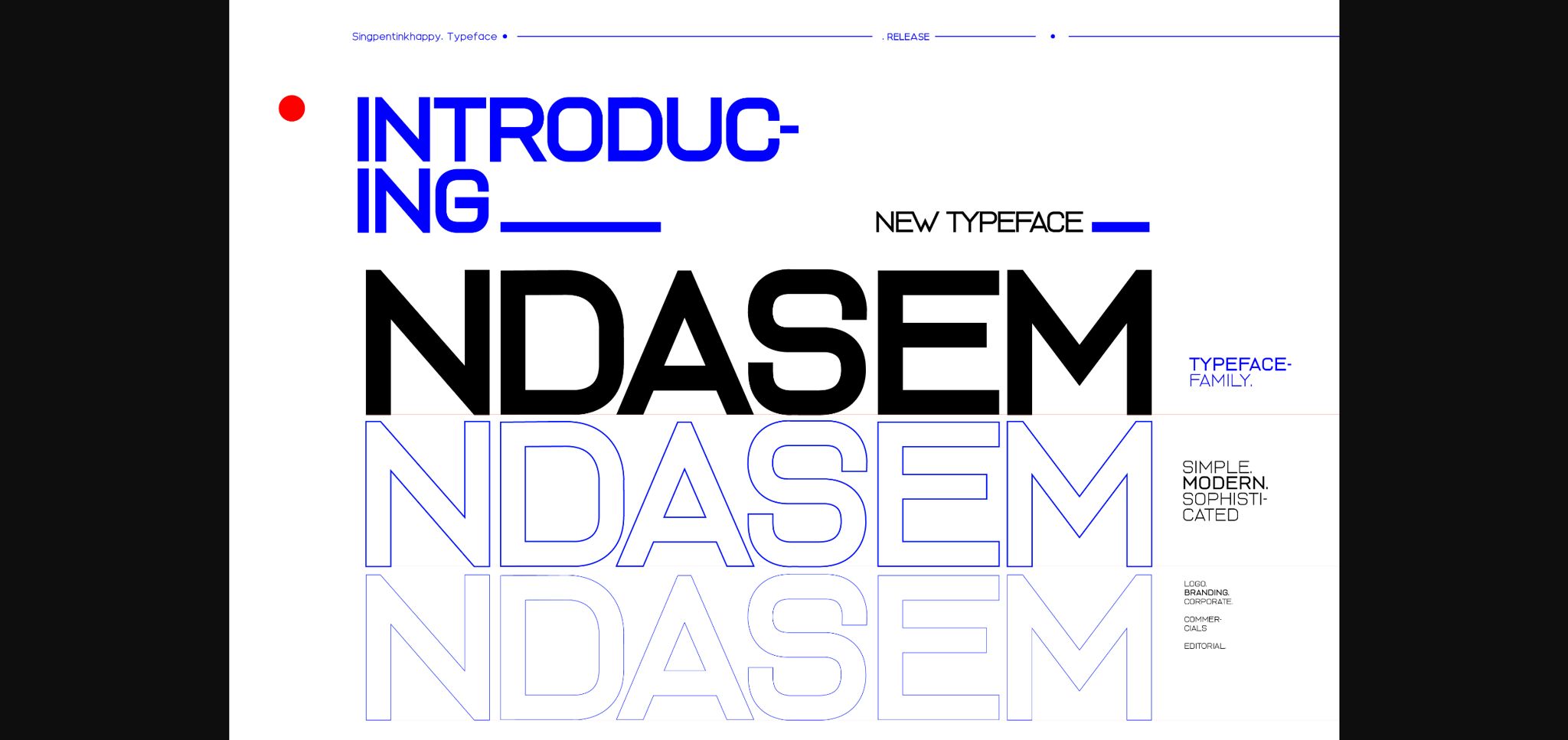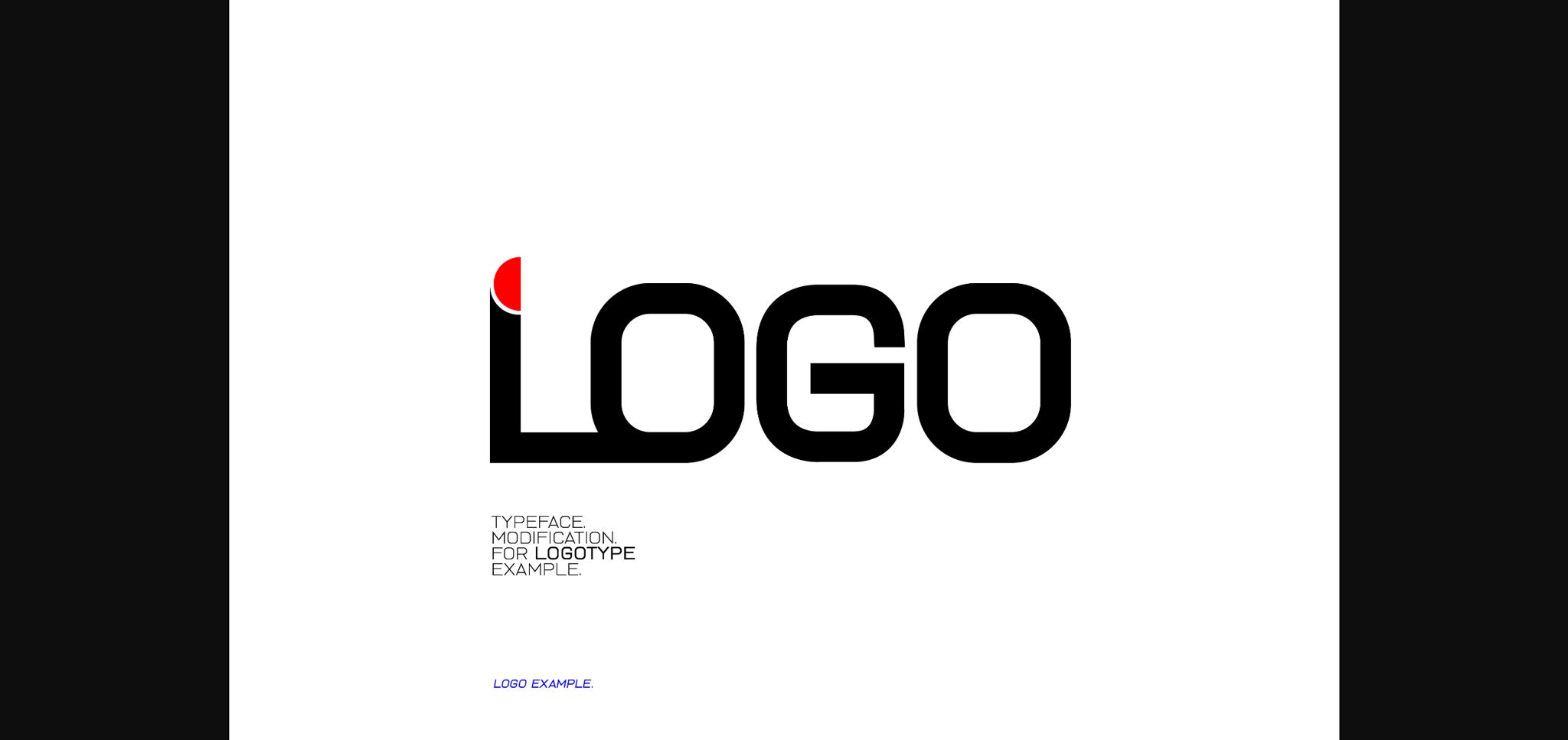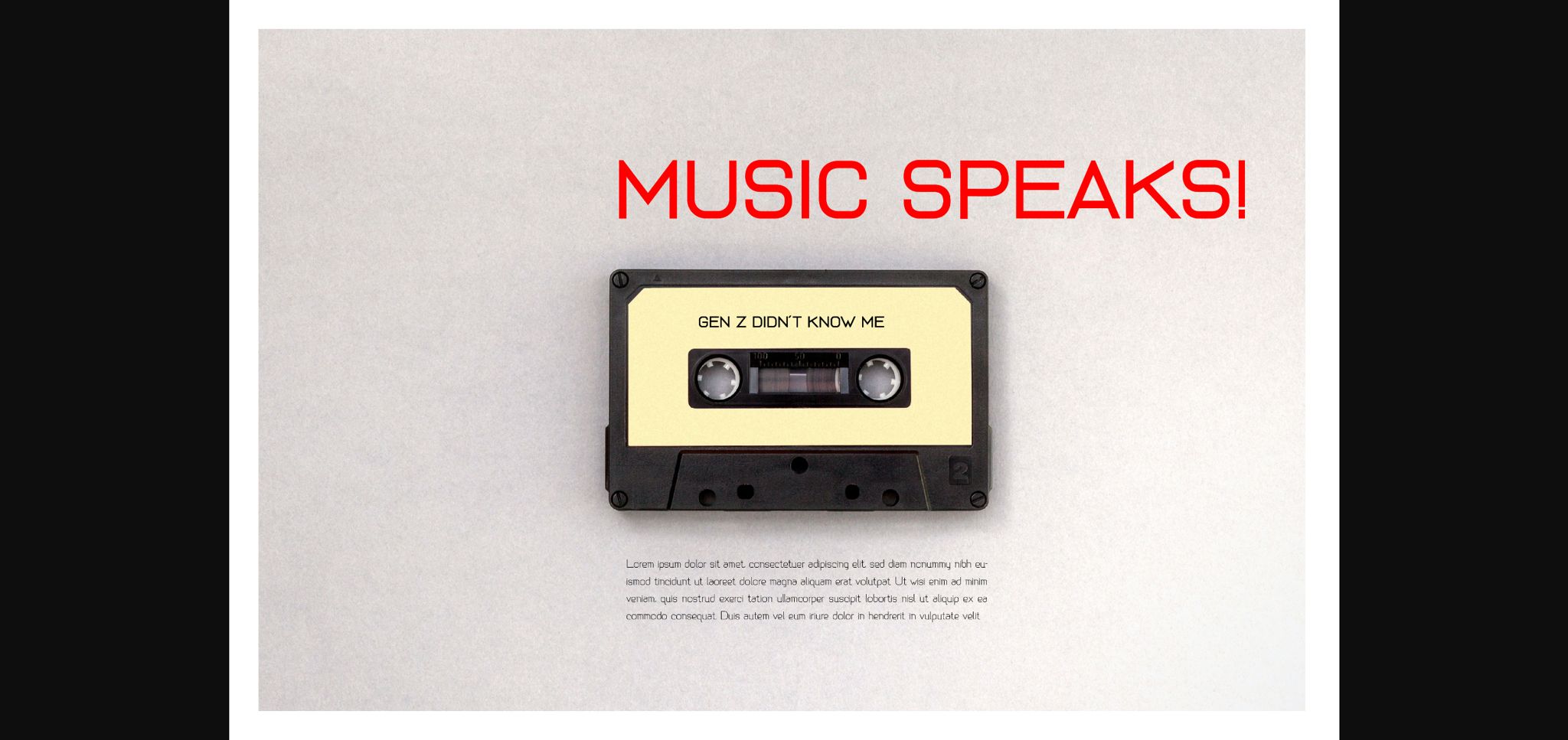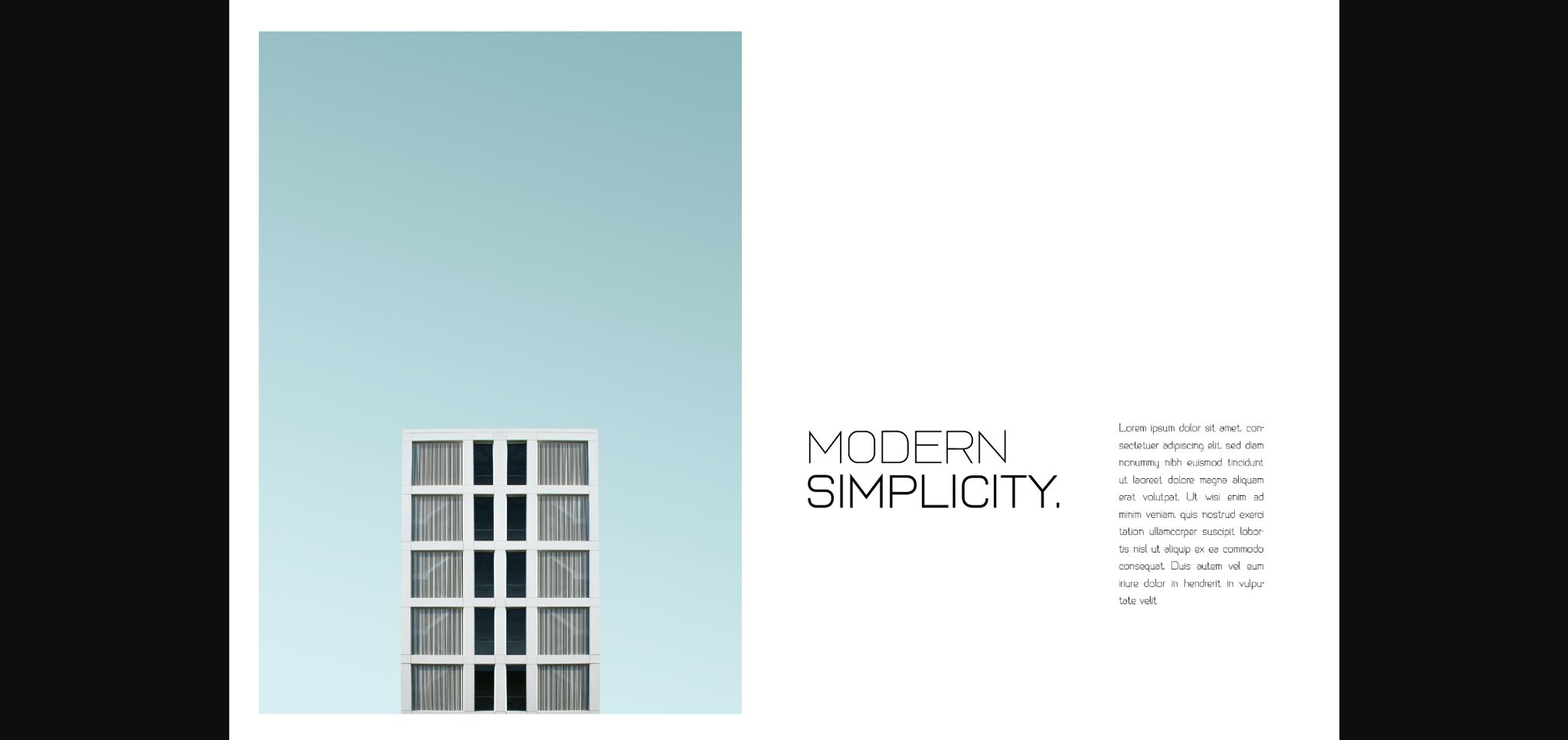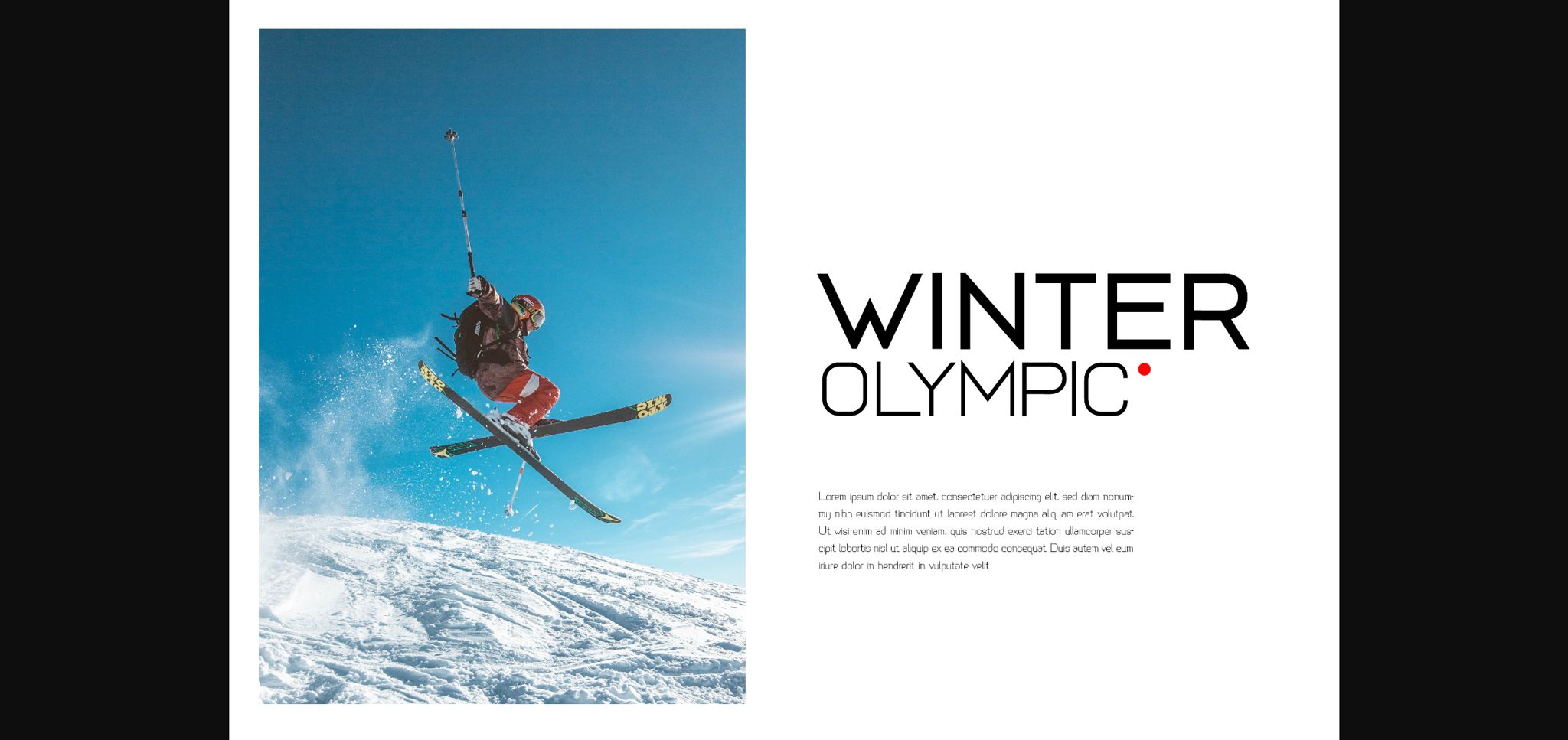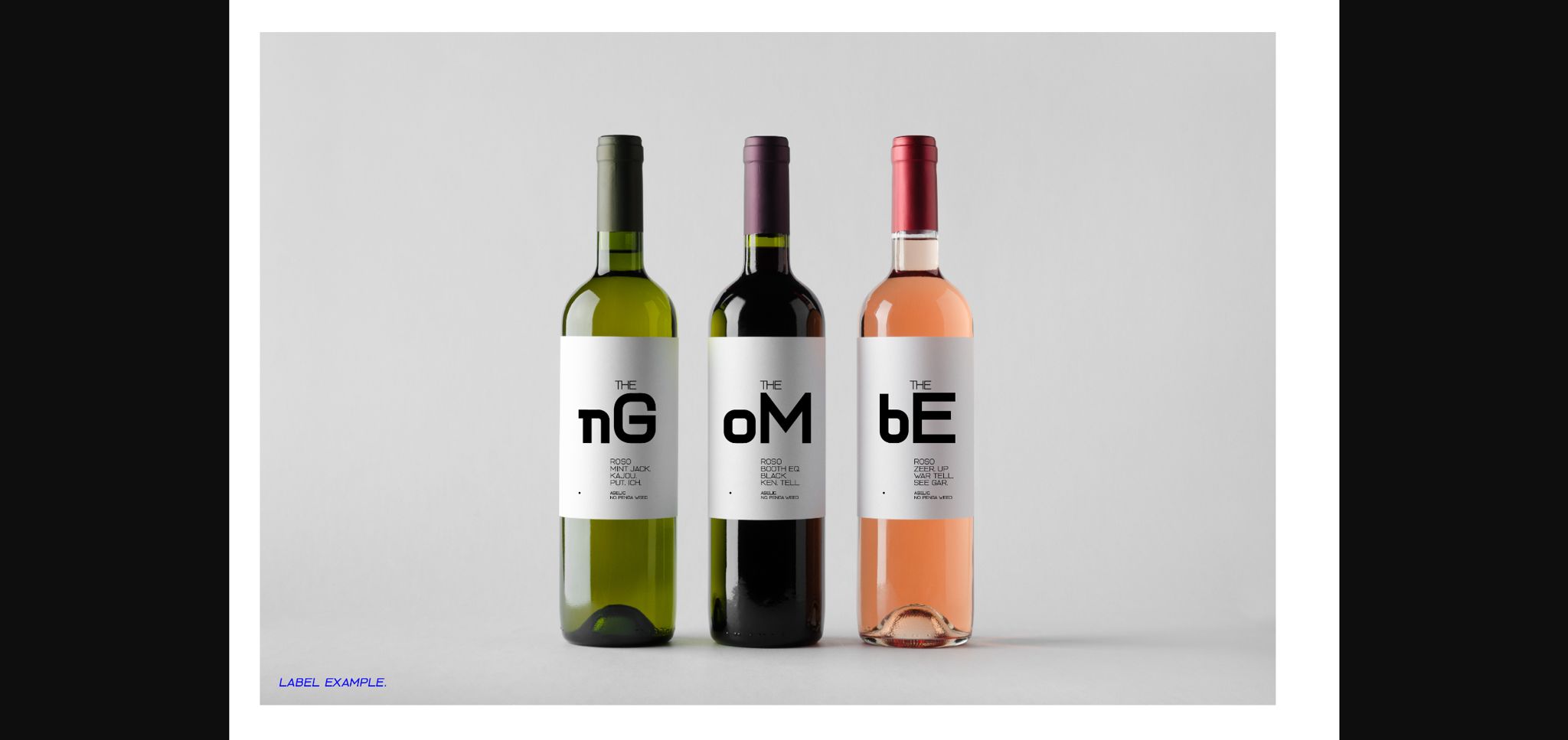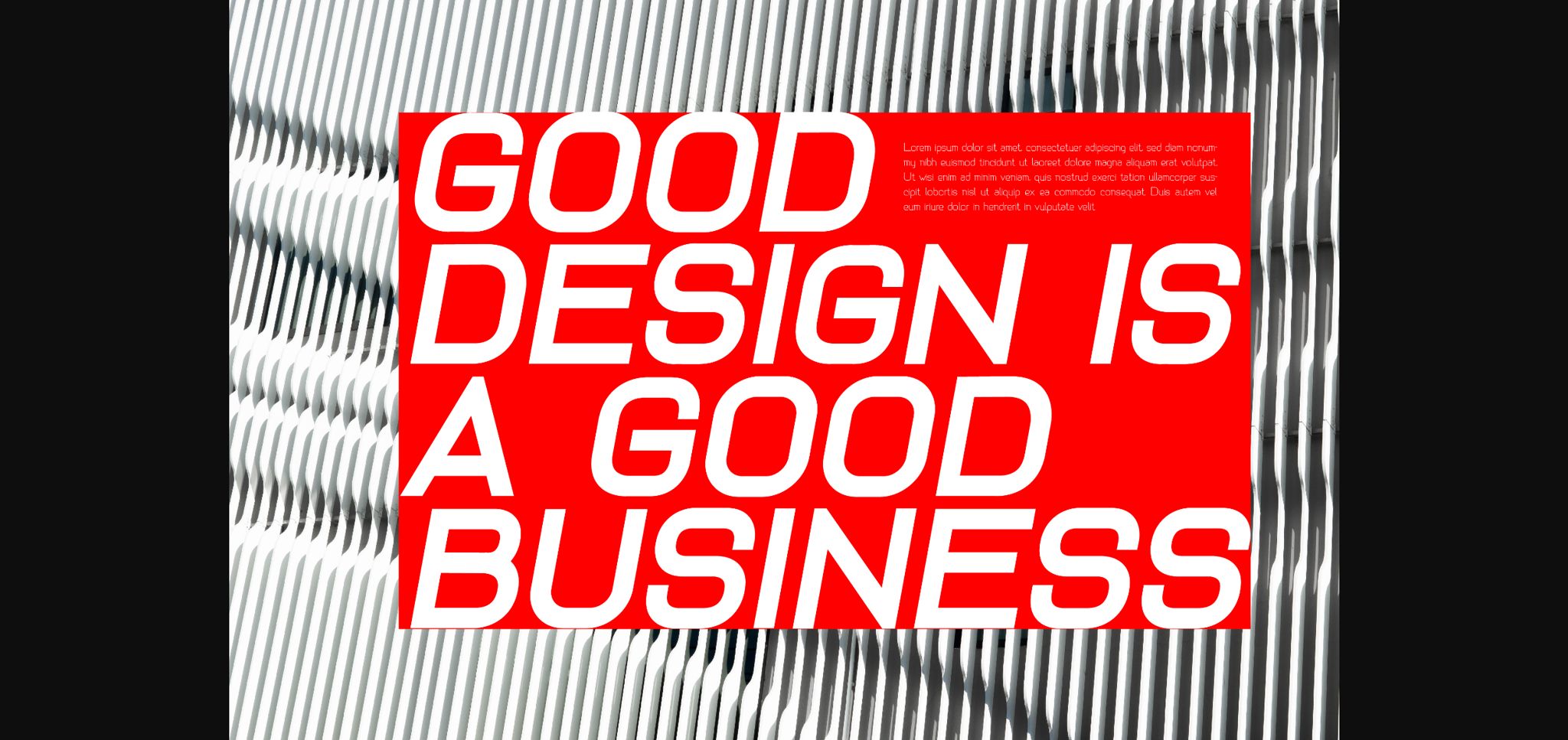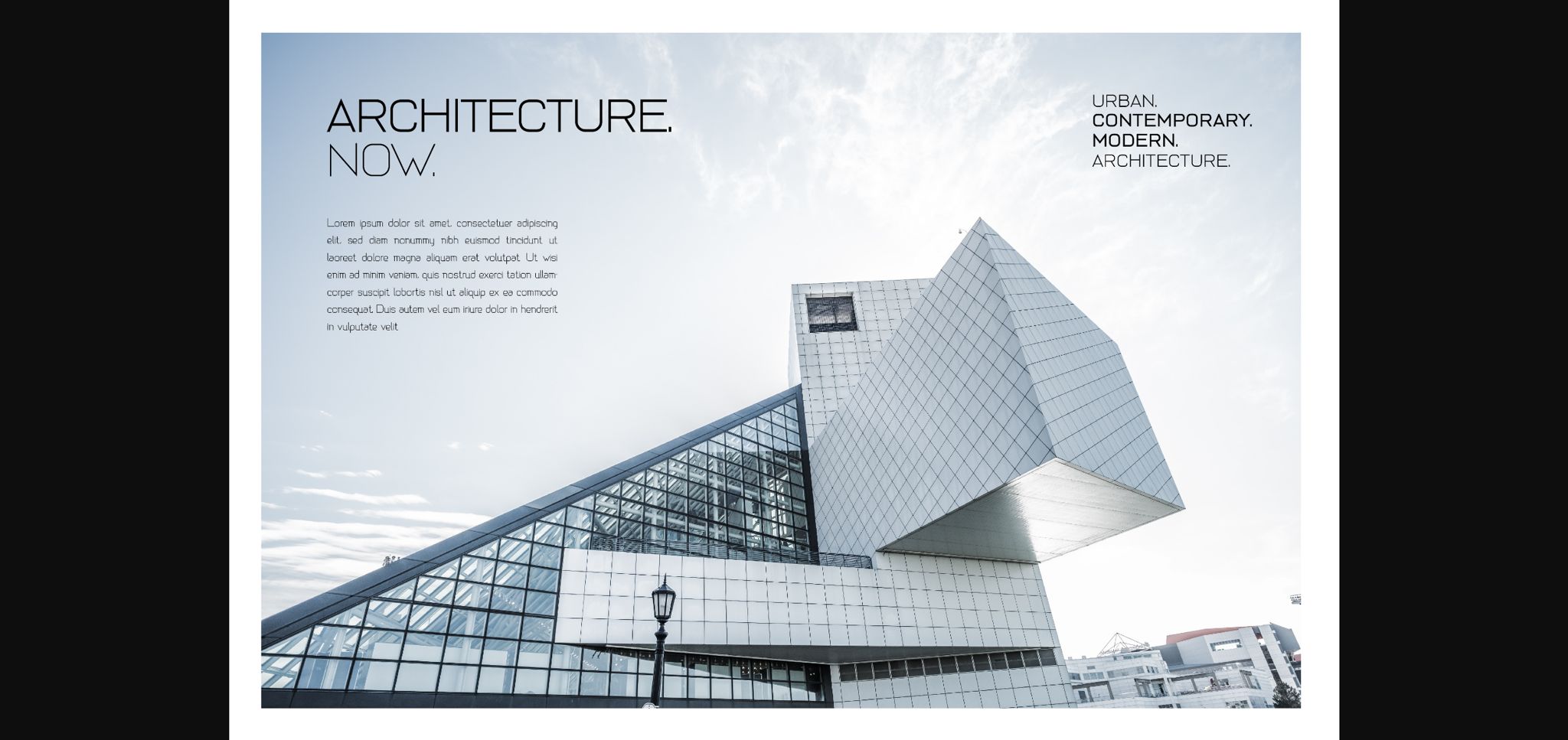
Ndasem is a strong and sophisticated sans serif typeface. It features an incredible modern style and it’s perfect for logos, magazines, flyers, posters and much more!